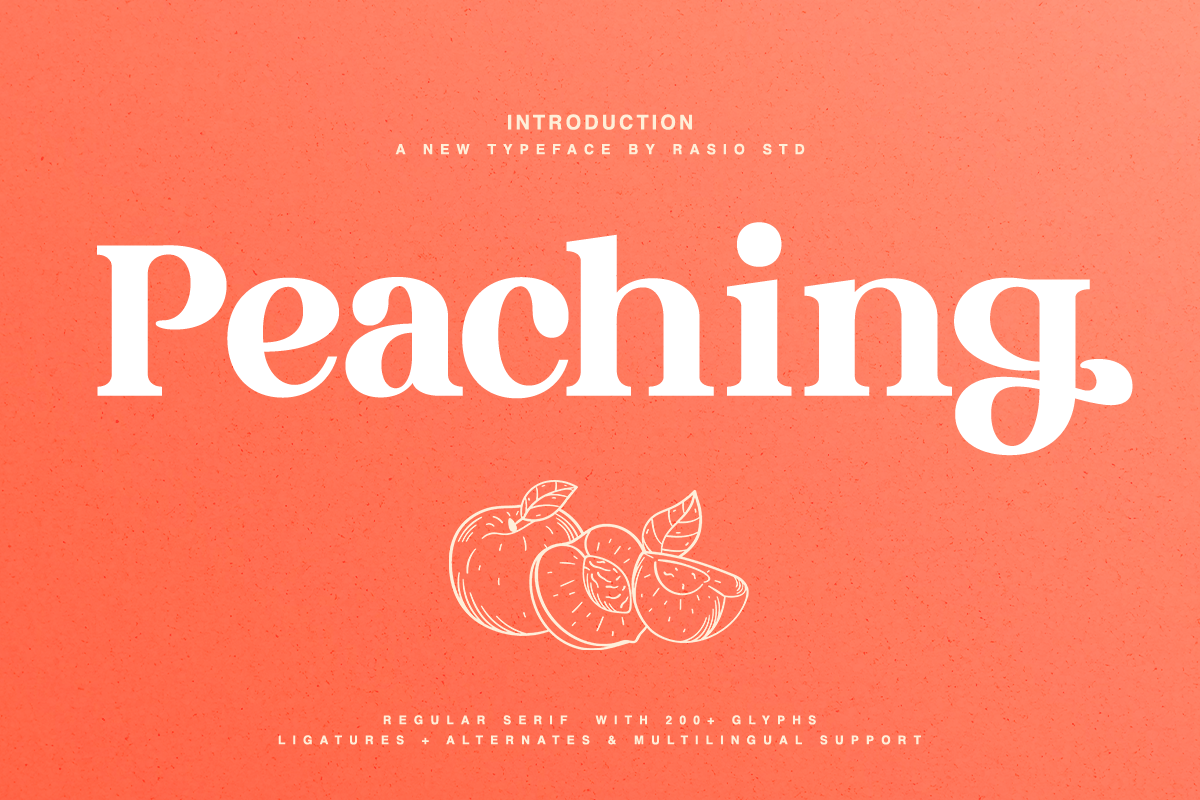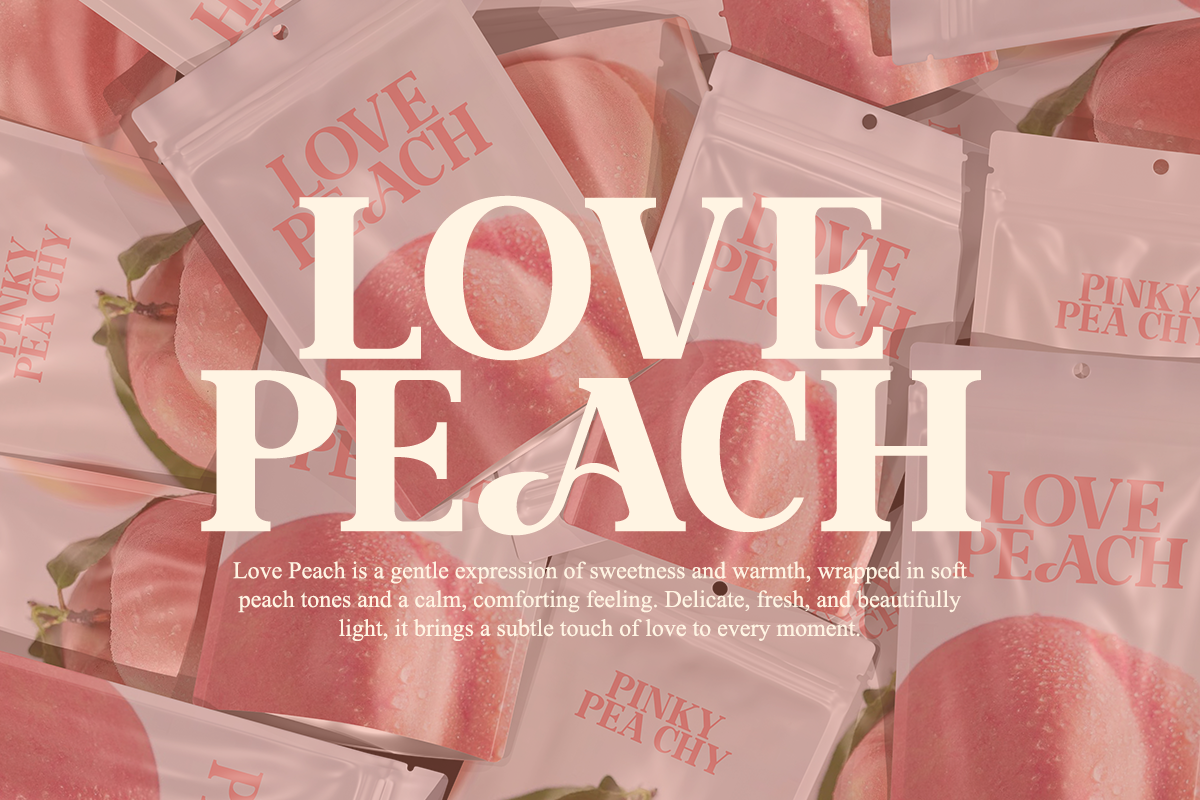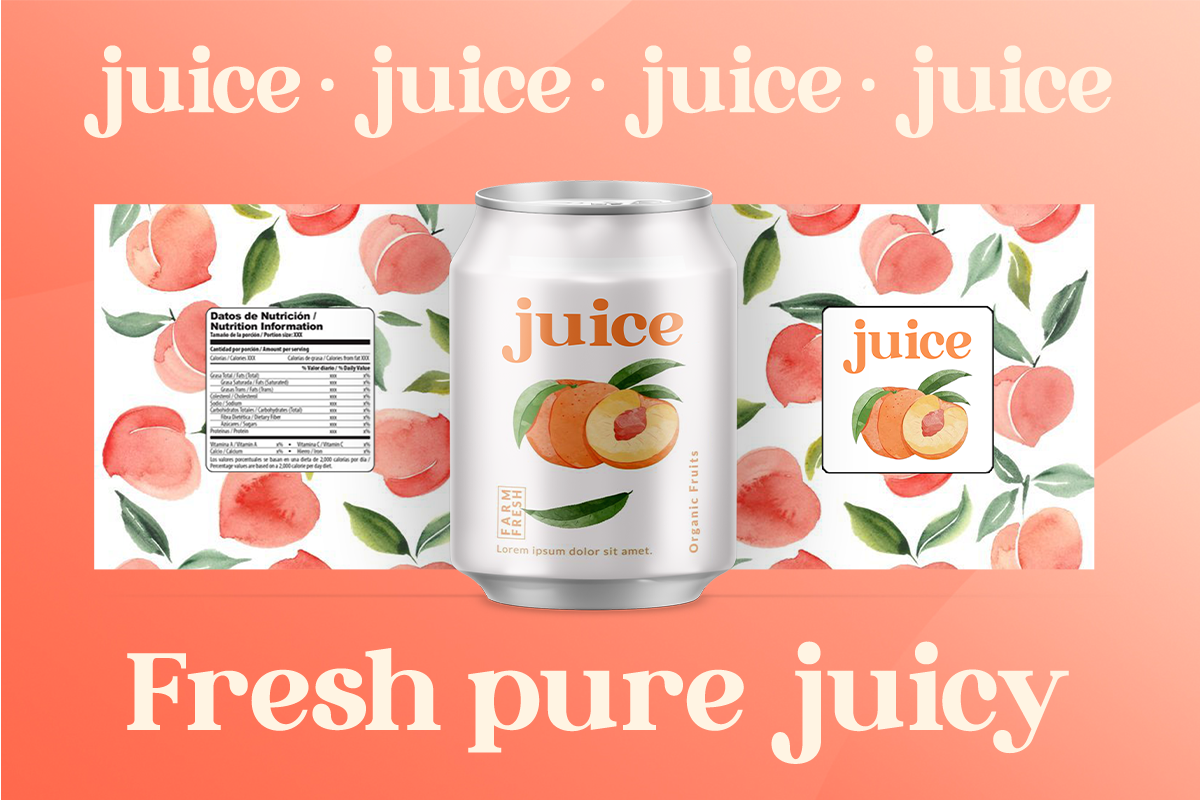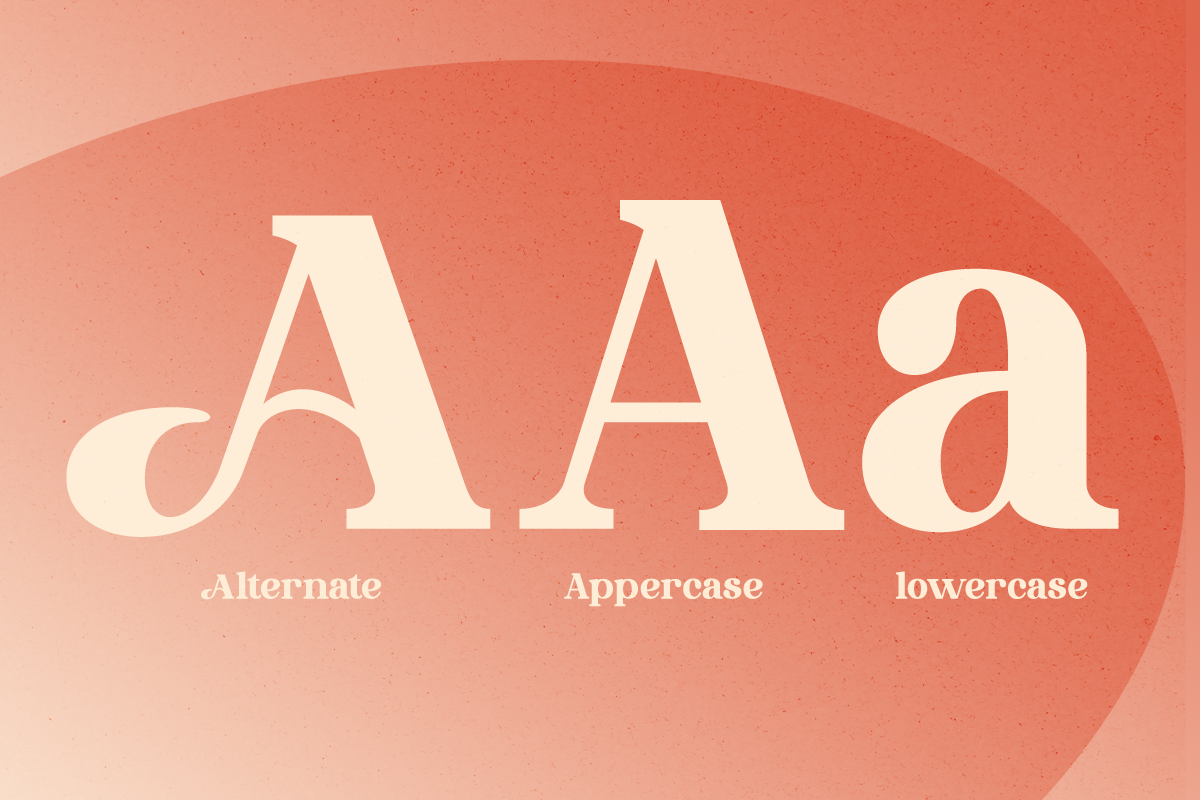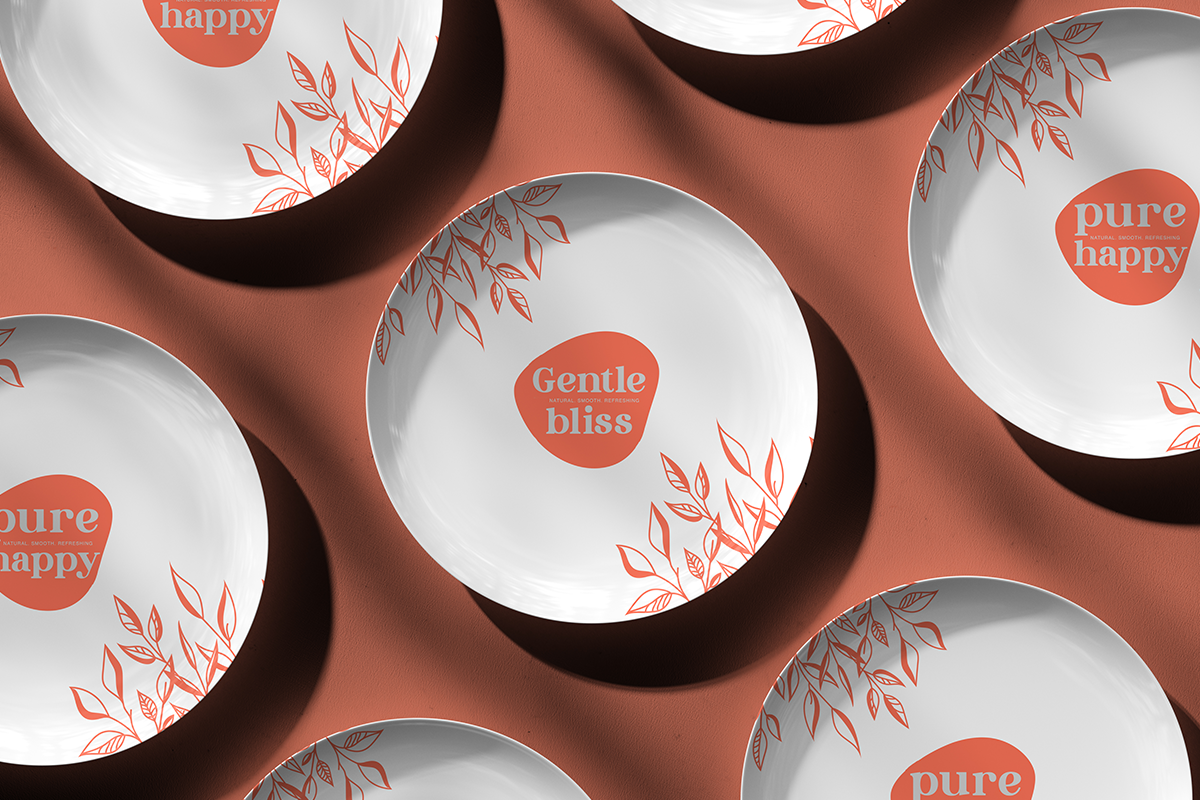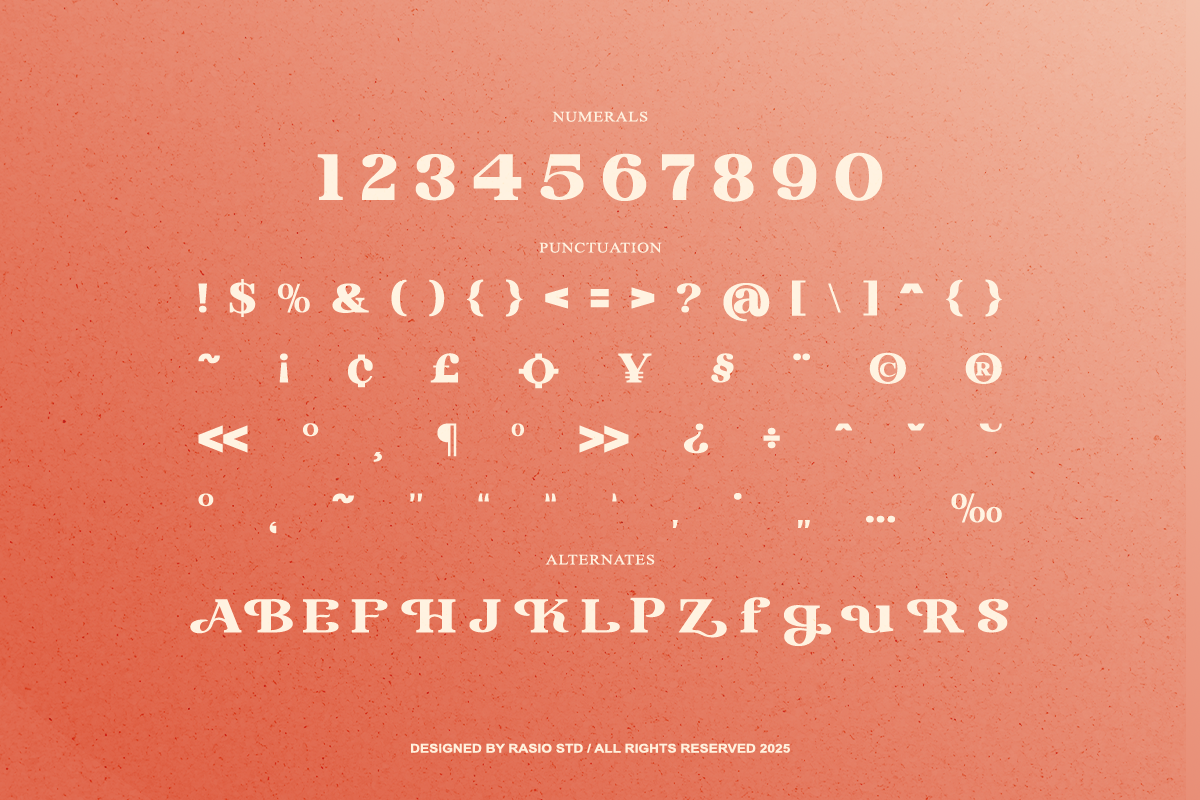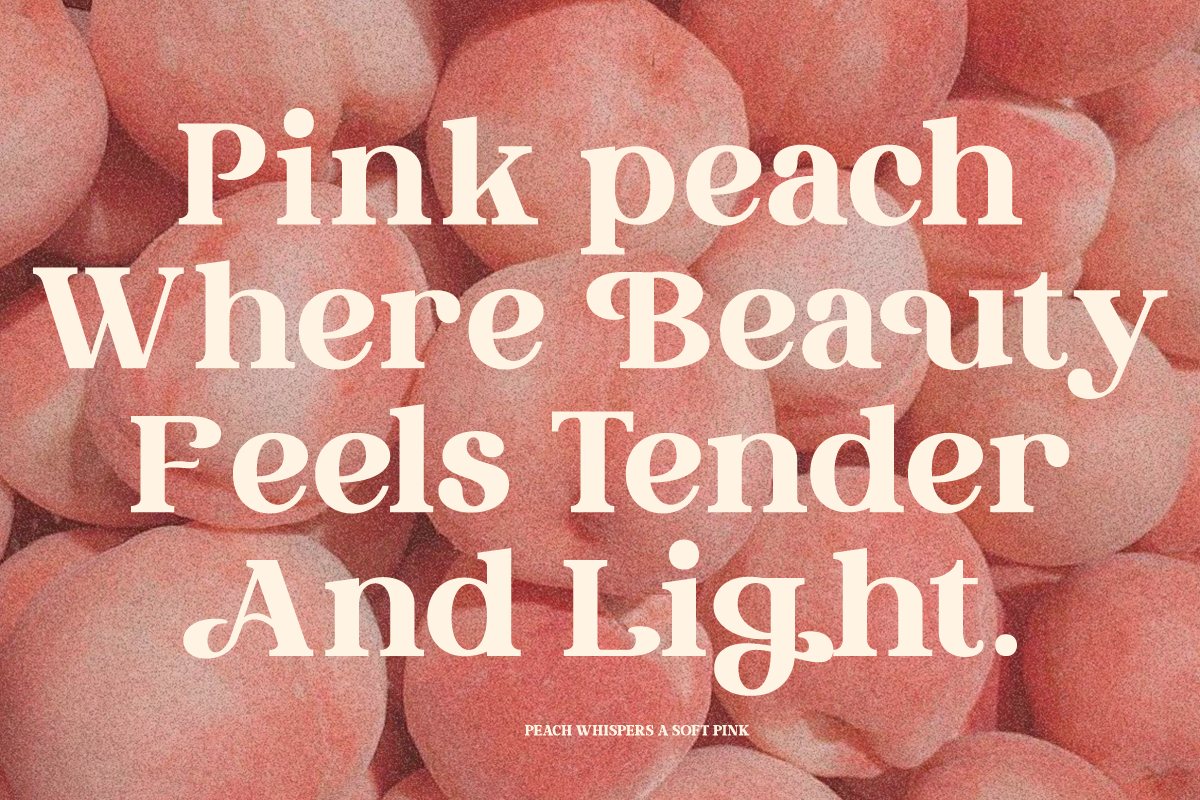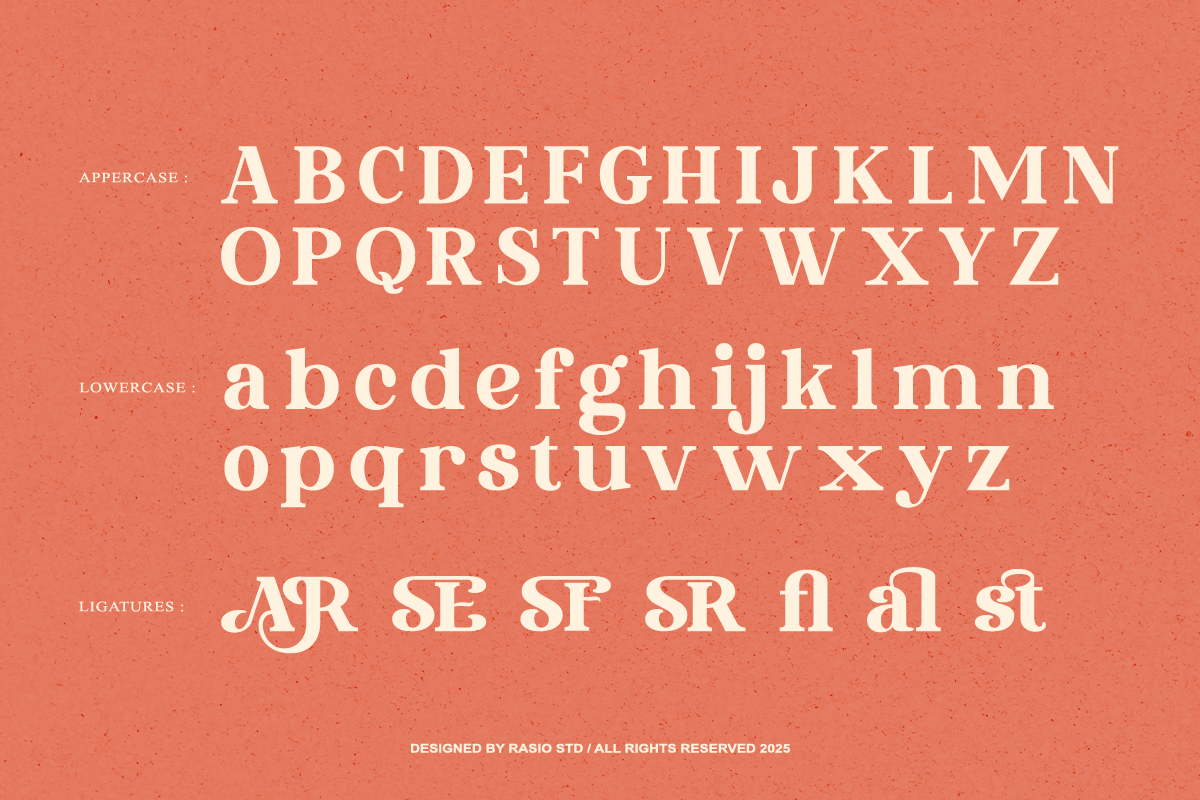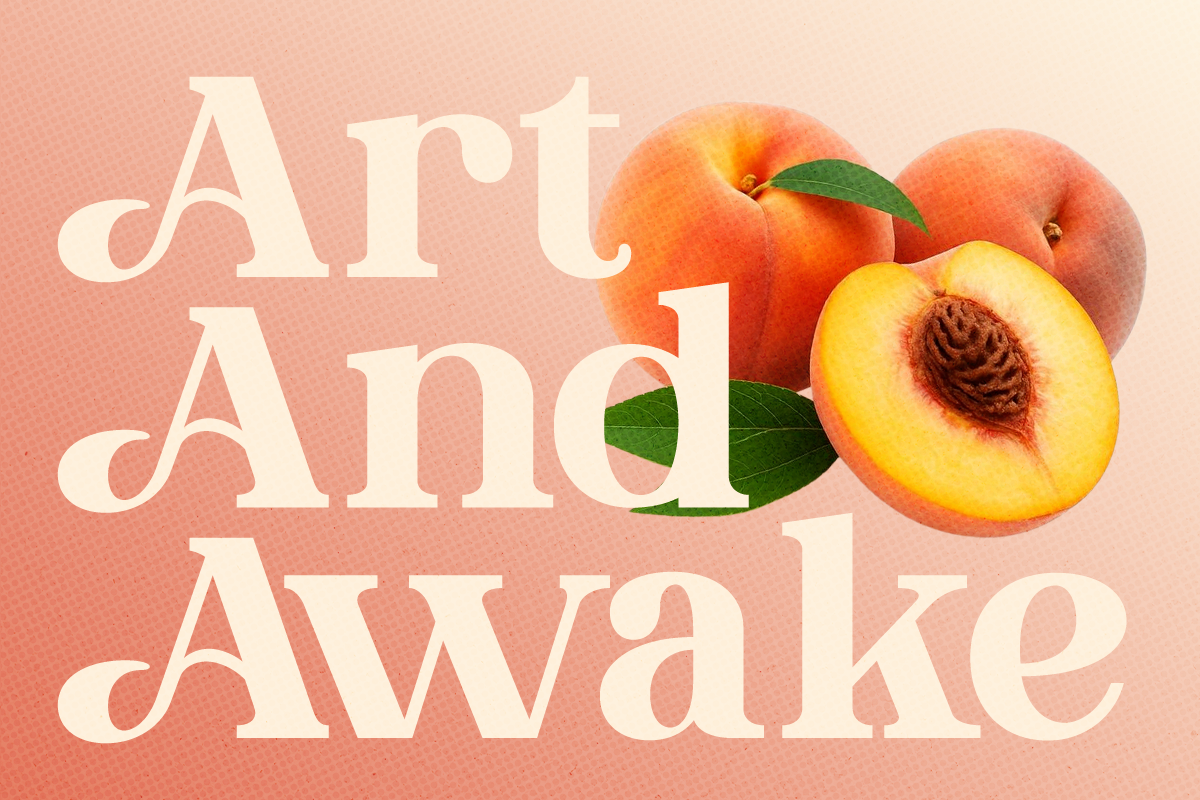
Peaching Regular Serif Font
Peaching is a sweet and charming serif typeface with a contemporary twist, this font comes with over 200 glyphs, including elegant ligatures, alternates, and multilingual support. With its soft curves, clean lines, and balanced proportions, Peaching evokes a sense of warmth and personality, perfect for adding a tender tone to your designs. This serif font features both uppercase and lowercase characters, numerals, punctuation, and beautifully crafted discretionary ligatures.
Relevance and Use Cases is perfect for a wide range of creative and commercial projects. Its soft and stylish design makes it ideal for wedding invitations, feminine brand identities, editorial spreads, product packaging, greeting cards, and digital promotions. The font’s character-rich glyph set and sweet flair also make it perfect for adding a delicate and emotional tone to personal or lifestyle designs.
- Modern serif structure with a soft and friendly visual tone
- Smooth curves and rounded edges creating a warm, approachable feel
- Moderate contrast strokes for balanced readability and elegance
- Subtle decorative alternates and ligatures for added personality
- Clean spacing and proportions optimized for both display and short text
- Branding projects that need a soft, friendly, and modern serif identity
- Packaging design for food, beauty, and lifestyle products with a warm aesthetic
- Editorial layouts, magazines, and creative publications with a contemporary tone
- Social media content, quotes, and marketing visuals with a playful yet elegant feel
- Invitations, greeting cards, and seasonal designs with a charming personality